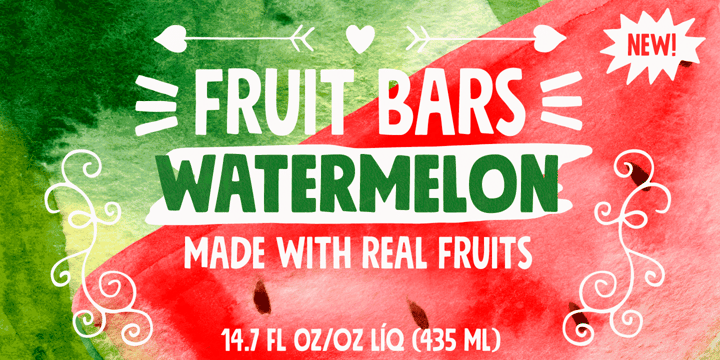
Mindset™ by PintassilgoPrints
Mindset Font Family was designed by Erica Jung, Ricardo Marcin and published by PintassilgoPrints. Mindset contains 3 styles and family package options. More about this family
Meet Mindset, an open-minded versatile hand-drawn family. Its regular and slim cuts, both all-caps-with-alternates for that unique feel, fit countless purposes where a touch of hand​-done is welcome. There’s yet a picture font with plenty of stylish graphic elements for added coolness. Give it a try and see for yourself. It's all in the mind, y'know.